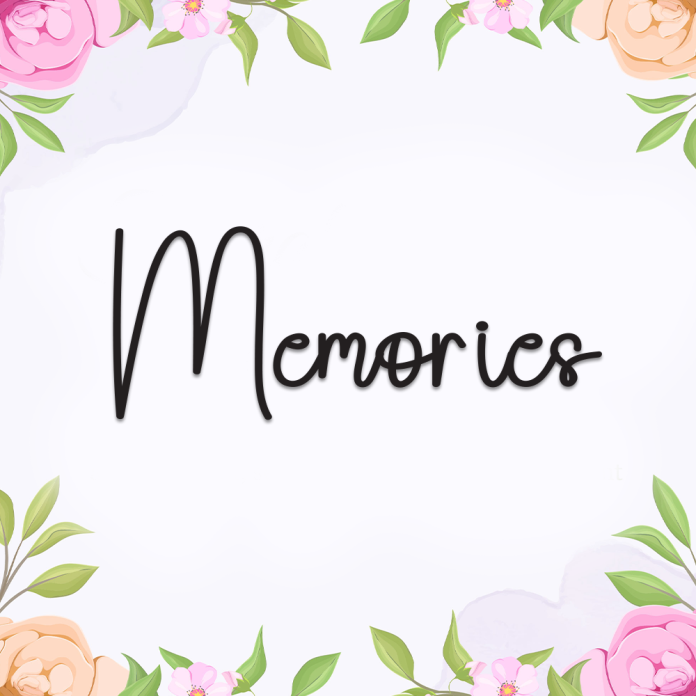
Memories is a heartfelt handwriting font that captures the warmth of nostalgic moments and personal storytelling. Its soft curves and smooth flow resemble hand-penned journal entries or love letters, making it perfect for emotional, romantic, or vintage-themed designs.
Whether you’re creating greeting cards, wedding materials, or memory scrapbooks, Memories adds a tender, handwritten touch that speaks directly to the heart.
Soft and emotional handwritten style
Ideal for memory books, love letters, and romantic themes
Let Memories bring warmth and authenticity to your designs, just like cherished handwritten notes from the past.